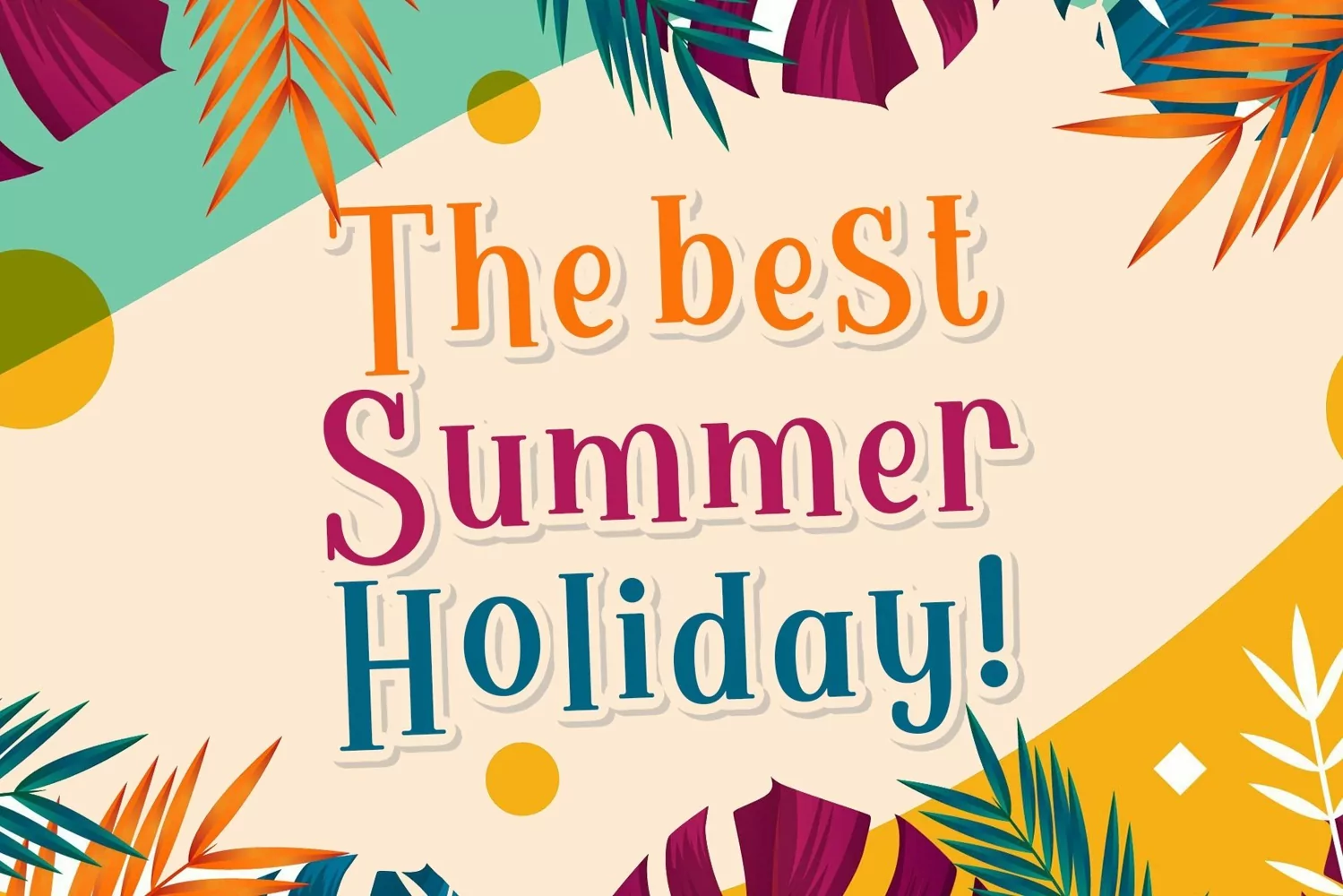
Pumredio is a display typeface. Perfect for display, quotes, posters, event music, logo, logotype, mockup, business card, crafting needs, packaging, merchandise, print, t-shirt, mug and many more.